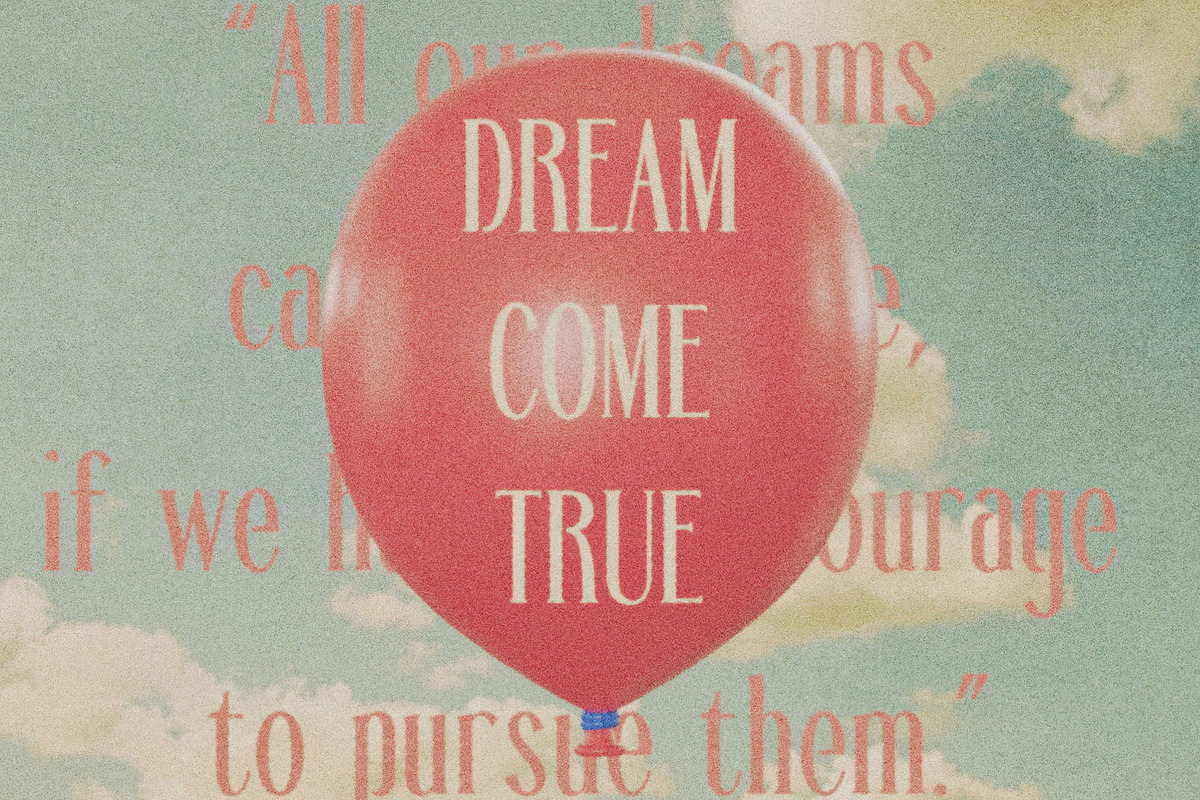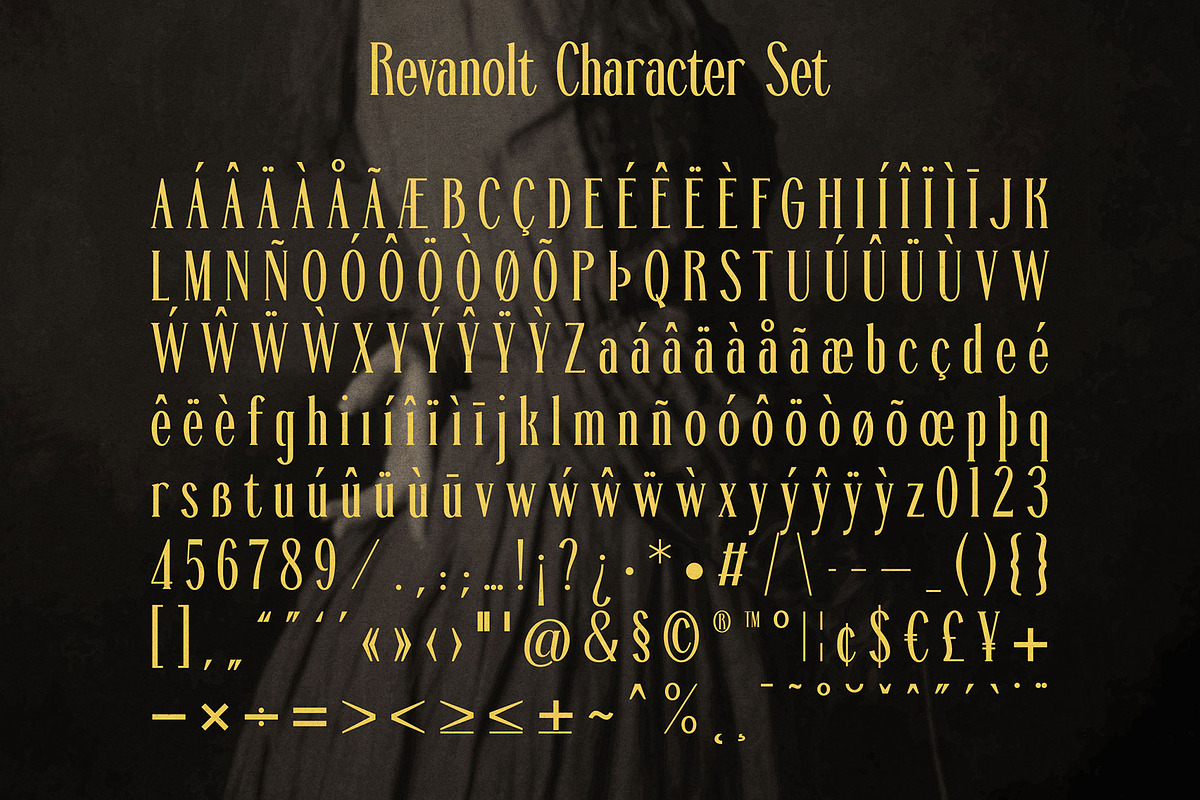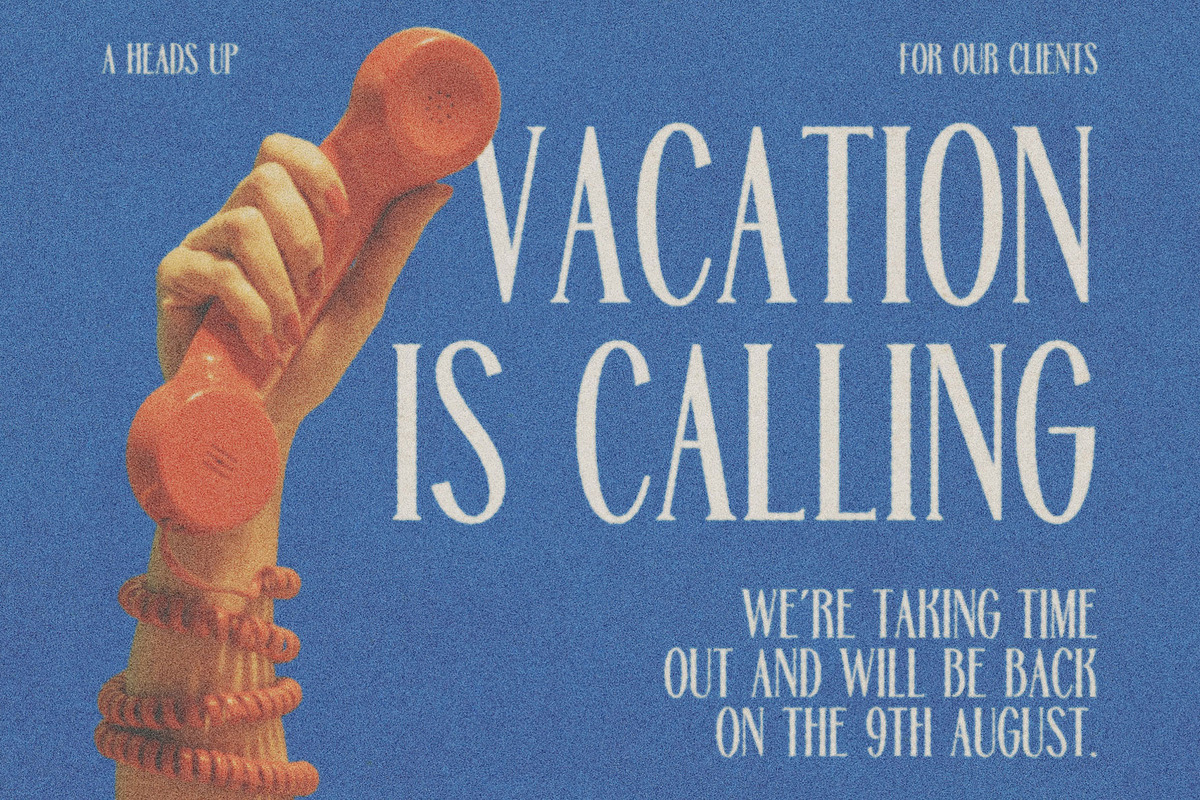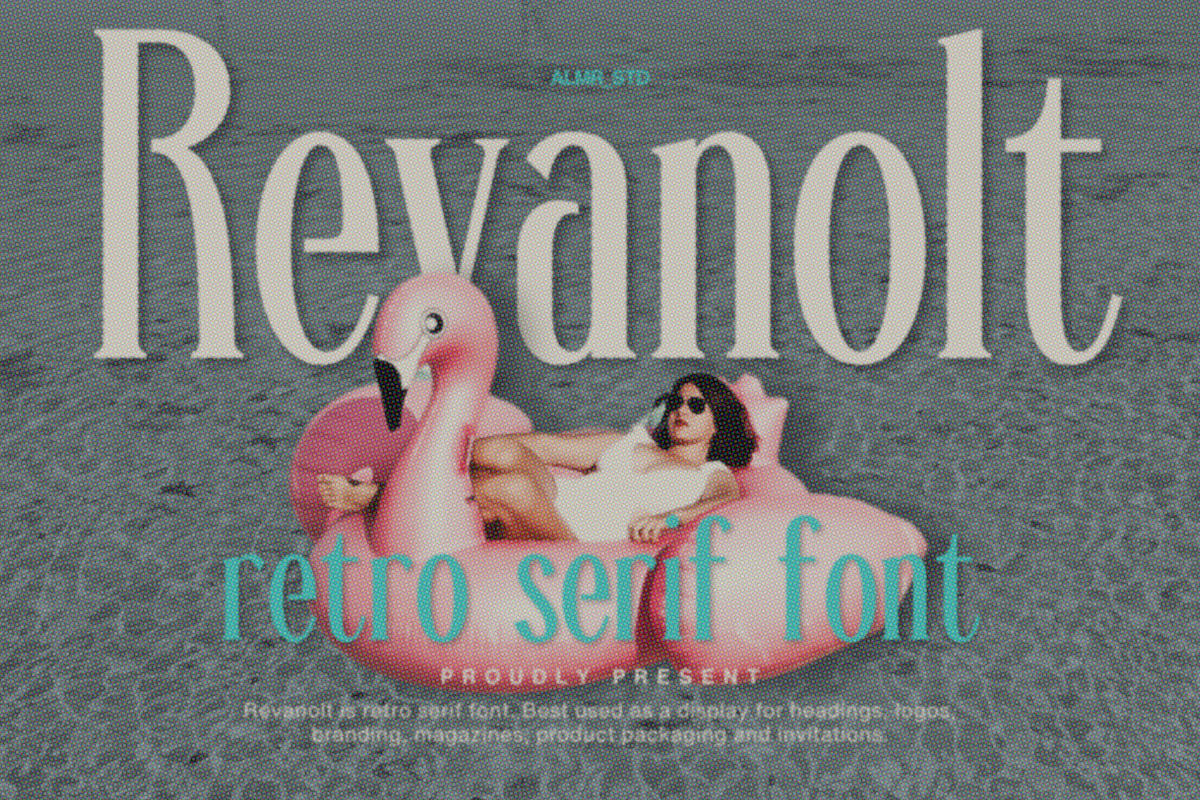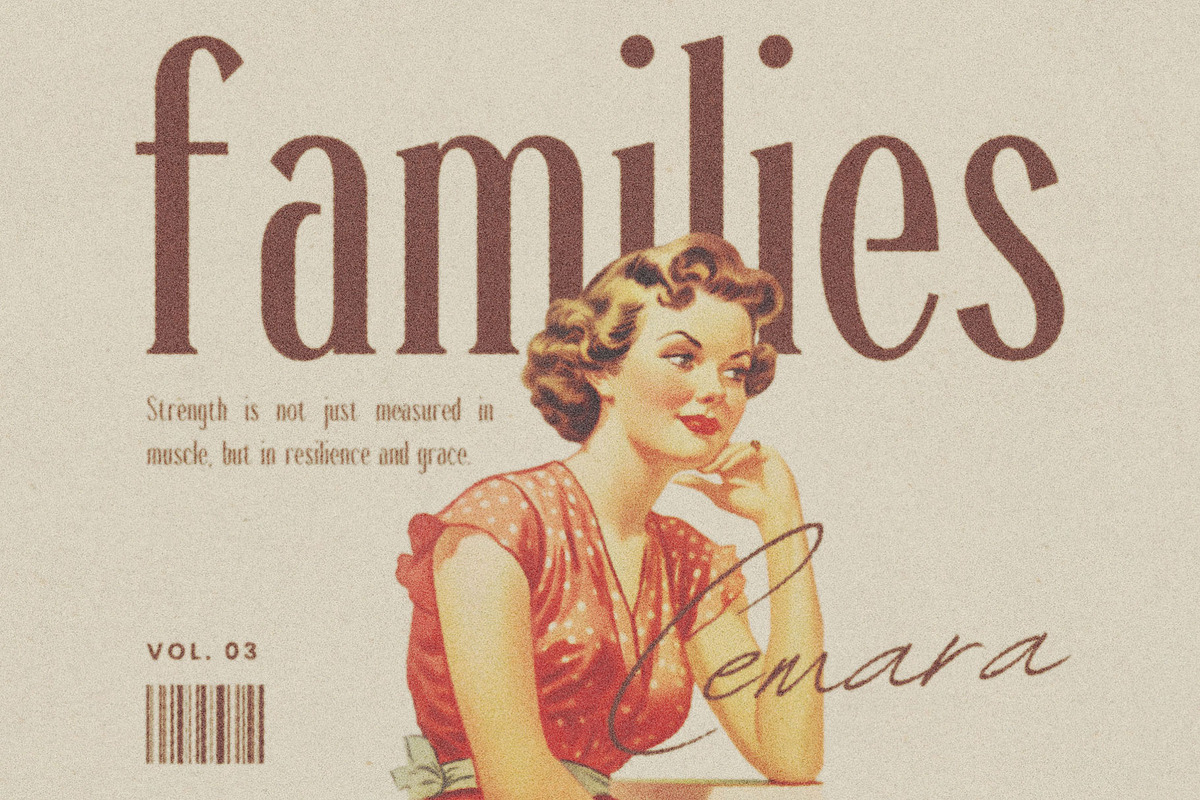
Revanolt | Retro Serif
Revanolt is a refined condensed serif font that radiates elegance and luxury. With its distinctive style, this font is the perfect choice for crafting exquisite logotypes, eye-catching magazine layouts, and more. Making it the ideal solution for creating standout designs with a sophisticated touch. Whether you're working on high-end branding or editorial masterpieces, Revanolt adds a timeless, polished finish to any creative endeavor.